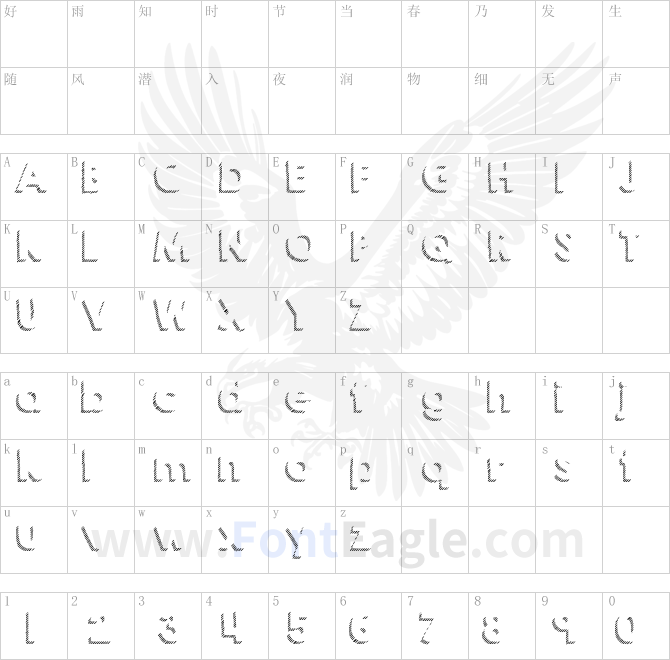
- Font name:KG HAPPY Shadows
KG-HAPPY-Shadows is a great font, widely used in graphic design, single-page menu design, poster design and other fields, and is deeply loved by designers.KG-HAPPY-Shadows download.